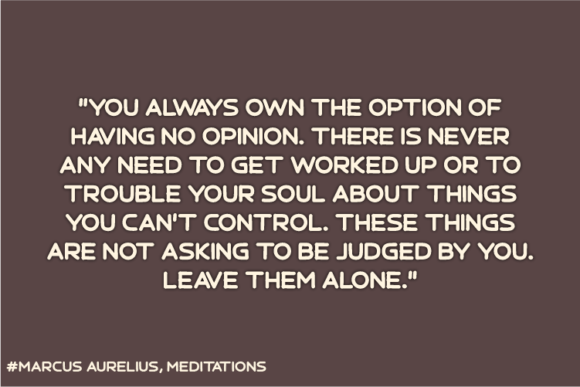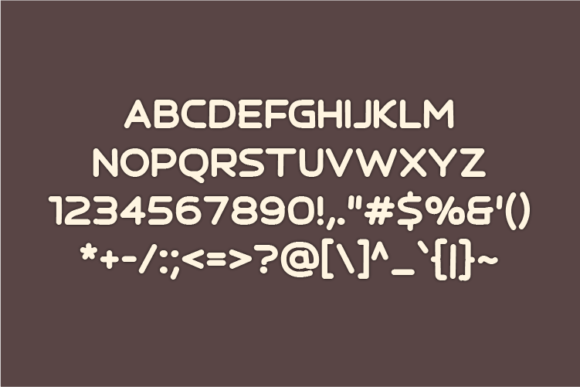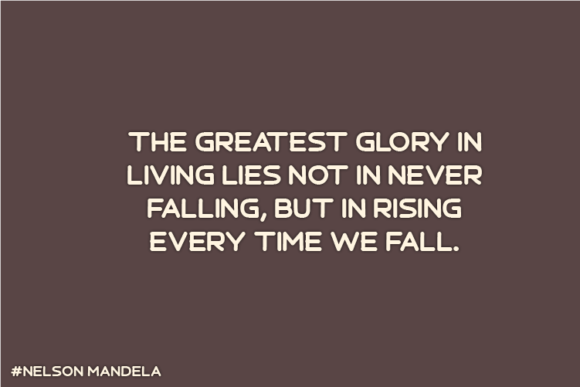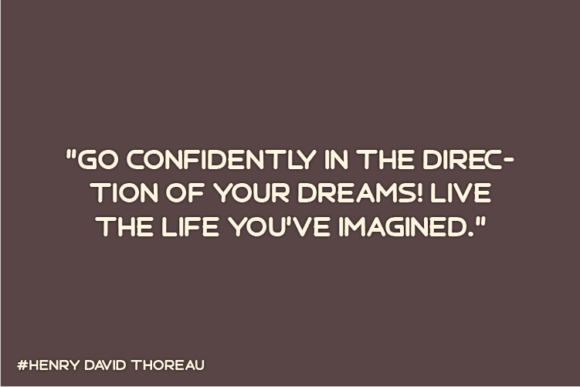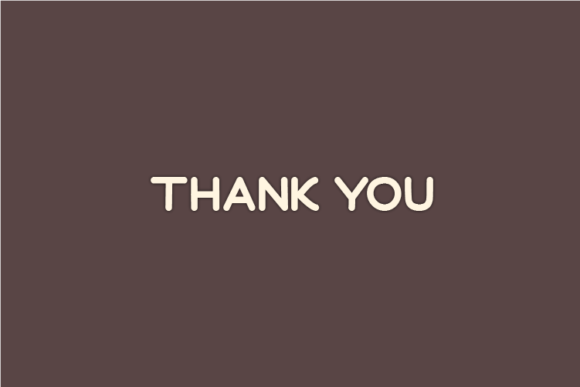
Hazelnute Font
About Hazelnute Font
Hazelnute is a quirky and playful all-caps handwritten font that brings a spark of fun and creativity to any project. With its energetic personality and unique handcrafted look, this font is a wonderful choice for designers, crafters, and small businesses who want to make their designs stand out.
A Cheerful All-Caps Style
Hazelnute features all uppercase letters with organic, uneven lines that feel personal and approachable. Each character has been thoughtfully drawn by hand to capture a lighthearted, spontaneous look.
This all-caps design is especially great for:
• Bold Headlines: Make your titles pop with character and flair.
• Greeting Cards: Send cheerful messages that feel warm and genuine.
• Stickers & Labels: Add a homemade touch to packaging and gifts.
• Kids’ Projects: Perfect for playful themes and friendly designs.
• Posters & Flyers: Create eye-catching layouts that grab attention.
Clean Yet Playful
Even with its quirky personality, Hazelnute remains clean and easy to read. Each letterform has been balanced to keep your text legible across different sizes and backgrounds.
Whether you’re writing a short phrase or a longer headline, Hazelnute maintains visual harmony and clarity, so your message always shines through.
Versatile for Any Creative Project
Hazelnute is designed to adapt to a wide variety of styles and uses. Its casual handwritten feel works equally well in bright, colorful projects or minimalist designs.
Try it for:
• T-shirt slogans and apparel designs
• Social media graphics and stories
• Event invitations and party decorations
• Branding elements for products with a fun personality
• Journals, planners, and printable downloads
Why Choose Hazelnute?
Designers love Hazelnute because it is:
✅ Quirky, playful, and full of character
✅ Clean and readable in all sizes
✅ Perfect for print and digital designs
✅ Versatile for a wide range of creative applications
Make Your Designs Stand Out
If you’re looking for a handwritten font that instantly adds charm and personality, Hazelnute is the perfect addition to your font library. Let it inspire your creativity and transform your ideas into designs that leave a lasting impression.